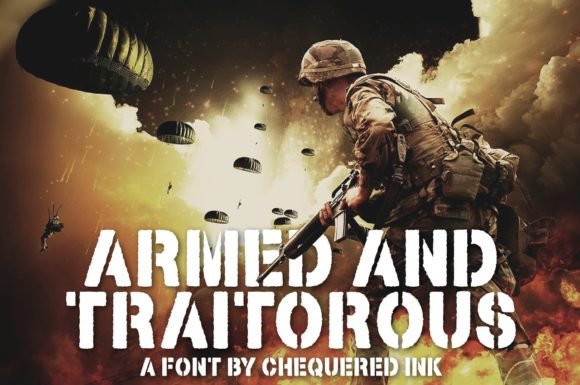
Unleash the Fury of Your Designs
You know that moment when you’re brainstorming a new project and the ideas just start pouring in? The excitement is palpable, and your imagination is running wild. You envision bold headlines, striking typography, and a visual narrative that grabs the viewer’s attention. But, how do you bring that vision to life?
Enter the Armed and Traitorous Font – a game-changing typographic tool that packs a punch. This powerful font is designed to add a dose of military might to your creations, making your message stand out in a crowded landscape. Whether you’re a seasoned designer or a creative newbie, the Armed and Traitorous Font is an invaluable addition to your toolkit, giving you the flexibility to unleash your artistic vision and leave a lasting impression.
Armed and Traitorous Font Key Features
- Font Family: Armed and Traitorous Font is a unique, hand-drawn font family with 6 styles, each with its own distinct characteristics.
- Unique Characteristics: Armed and Traitorous Font features a distressed, hand-drawn aesthetic with a mix of rough textures and subtle imperfections, giving it a unique, vintage feel.
Armed and Traitorous Font Review
I recently had the chance to work with the Armed and Traitorous Font, and I must say, it’s an interesting choice for designers. Here’s my honest review.
- Unique Style – The font’s unconventional design is sure to grab attention. It’s perfect for projects that require a bold, edgy feel.
- High Contrast – The font’s high contrast ratio makes it easy to read, even in small sizes.
- Good for Titles – The font’s dramatic flair makes it ideal for titles, headings, and other display text.
- Difficulty in Legibility – At smaller sizes, the font can become difficult to read due to its intricate details.
- Not Suitable for Body Text – The font’s complexity makes it challenging to read large blocks of text, which can lead to eye strain.
- Limited Character Set – The font’s character set is limited, which can be a problem for designers who need to use special characters or languages.
Overall, I think the Armed and Traitorous Font is a great choice for designers who want to add some edge to their projects. While it has some limitations, it’s perfect for titles, headings, and other display text. Just be mindful of its limitations when using it for body text or larger projects.
Use Armed and Traitorous Font to add a bold and edgy touch to your designs.
Pair it with bold colors and graphics to create a striking visual effect.
Experiment with different font sizes and styles to create a unique look.
Use Armed and Traitorous Font for:
1. Edgy marketing materials.
2. Bold headlines and titles.
3. Graphic novels and comics.
Alternatives to “Armed and Traitorous Font”
1. “Bebas Neue Font”
Bebas Neue is a sans-serif font with a modern and edgy feel. It’s perfect for creating bold and eye-catching headlines, especially in the tech and gaming industries. Compared to Armed and Traitorous Font, Bebas Neue has a more refined and polished look, making it suitable for a wider range of applications.
2. “Rock Salt Font”
Rock Salt is a distressed font with a vintage feel. It’s ideal for creating a retro or grungy aesthetic, often used in music, fashion, or streetwear designs. Unlike Armed and Traitorous Font, Rock Salt has a more subtle and nuanced look, making it perfect for designs that require a touch of grit and character.
Are there any specific font settings or guidelines for using Armed and Traitorous Font?
For optimal results, we recommend using the Armed and Traitorous Font at a font size of 12 points or larger. Additionally, the font is designed to work well with a line height of 1.2 or 1.5 times the font size. You can also adjust the font settings, such as font weight and style, to achieve the desired visual effect.